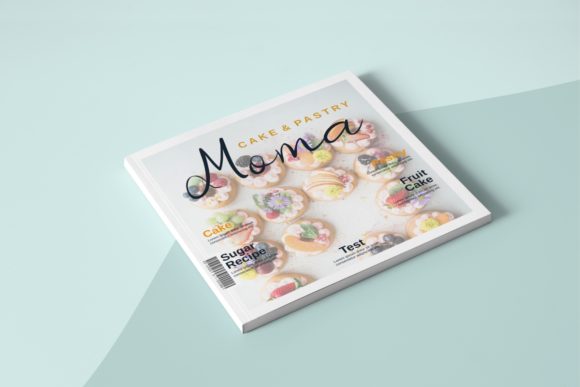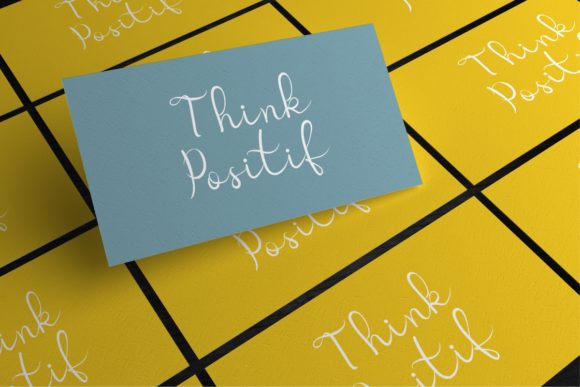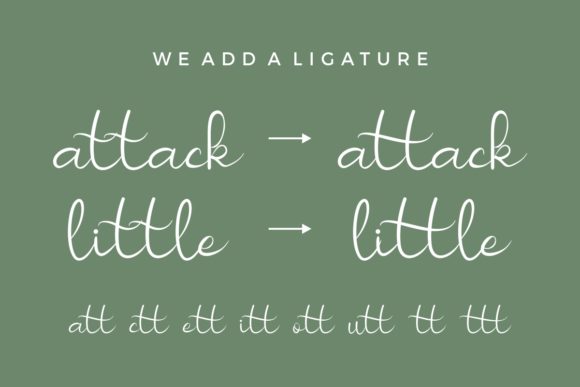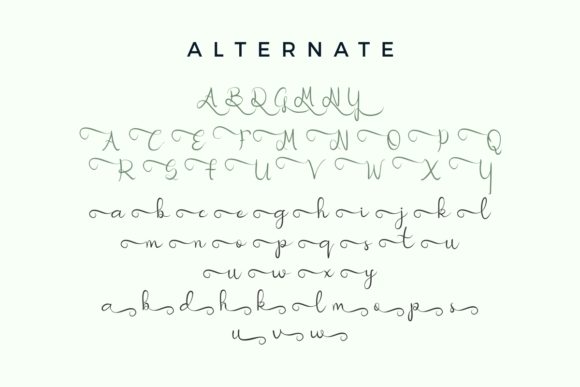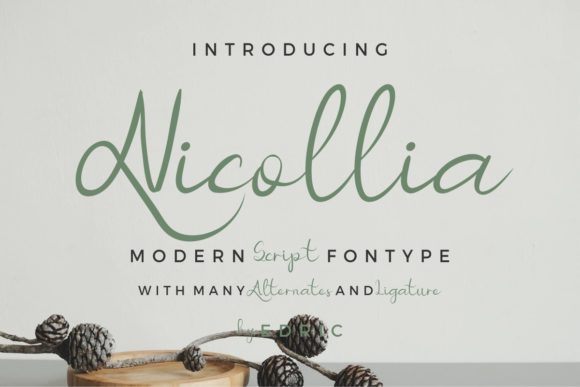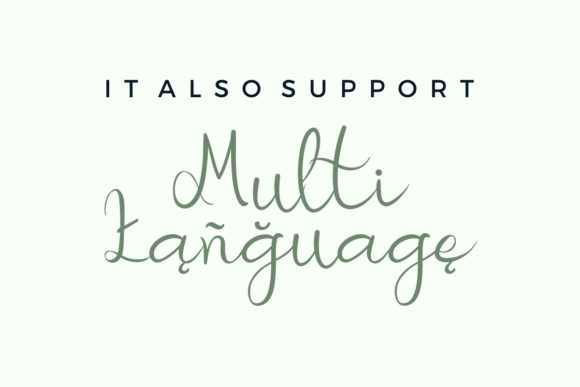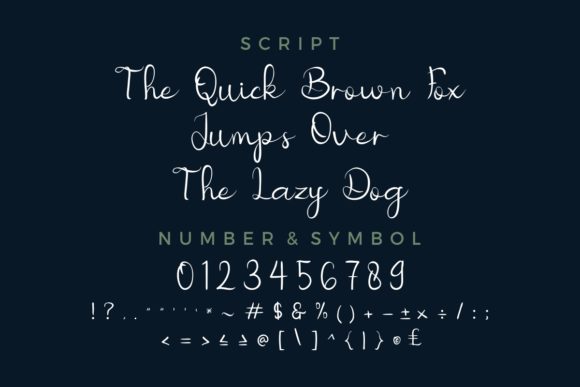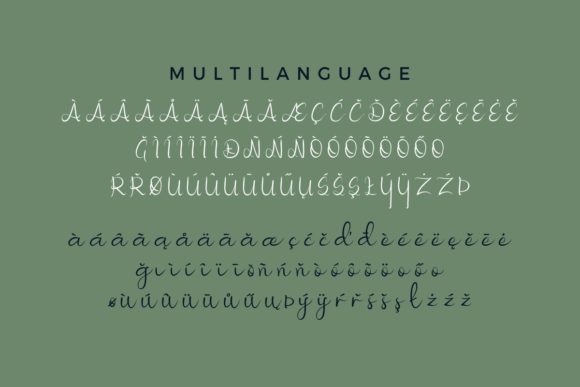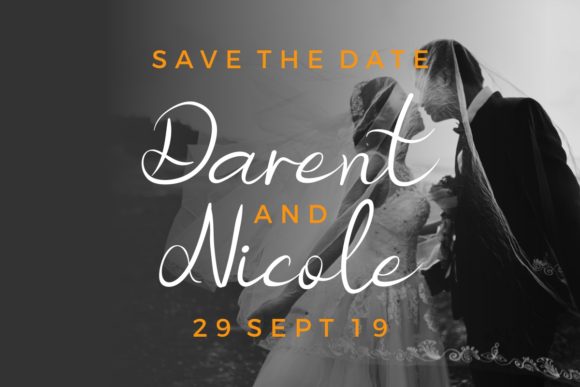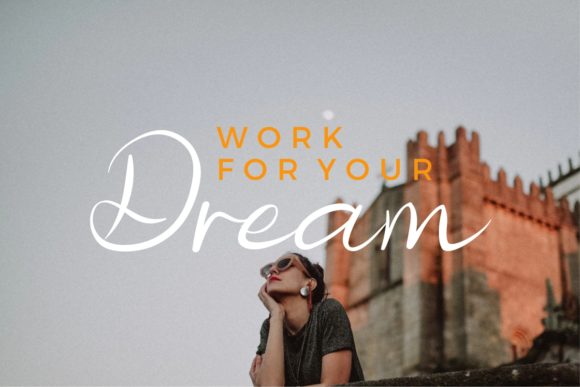
HomeScript FontsNicollia Font Script Fonts Nicollia Font FacebookXPinterestWhatsApp Nicollia Font Poster 2 Nicollia Font Poster 3 Nicollia Font Poster 4 Nicollia Font Poster 5 Nicollia Font Poster 6 Nicollia Font Poster 7 Nicollia Font Poster 8 Nicollia Font Poster 9 Nicollia Font Poster 10 Nicollia Font Poster 11 Nicollia Font Poster 12 Nicollia Font Poster 13 Nicollia Font Poster 14 About Nicollia Font Nicollia is a cool and fun handwritten font with a unique style. Get inspired by its bold charm! DOWNLOAD ON CREATIVE FABRICAThis font is sold and delivered by Creative Fabrica. Font Canyon may earn a commission if you buy through this link. People also explored Dhotamer Font Tropical Romance Font Holliday Spring Font Mother Day Font Shintania Font Rainbow Font Acrillia Font Merry Christmas Monogram Font Katheryna Font 351 0 TagsNicollia Font Previous articleStanding FontNext articleHidayah Font LEAVE A REPLY Cancel reply Comment: Please enter your comment! Name:* Please enter your name here Email:* You have entered an incorrect email address! Please enter your email address here Website: Save my name, email, and website in this browser for the next time I comment. Personal Use Free Rasiday Personal Use Free Read more about this font Cranberry Gin Personal Use Free Read more about this font DangeRNighT Font Personal Use Free Read more about this font Sabina Illusion Personal Use Free Read more about this font BLOG Using Fonts in Digital Marketing: Tips to Strengthen Your Brand Identity In the realm of digital marketing, every visual element plays a crucial role in shaping a brand's identity, and fonts are no exception. The... Transform Your Website: Elevate Your Typography with 7 Best Web Font Generators Top 10 Handwritten Fonts That Elevate Your Designs Fonts That Capture the Spirit of New York City